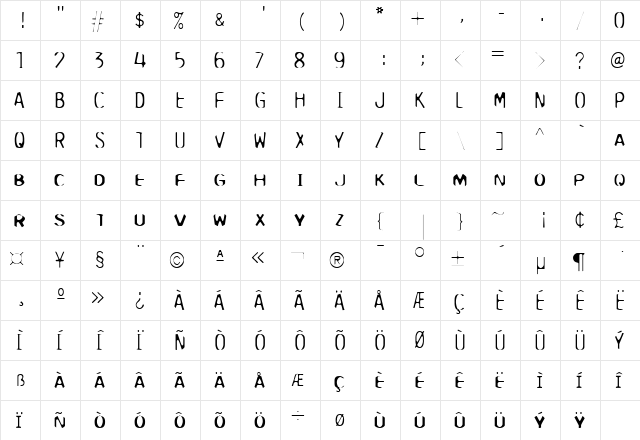
Pure Regular Font Preview
Pure Regular
Design Context for Pure Typeface
Pure takes a measured approach to typography — its balanced proportions and neutral character make it a reliable workhorse for both digital and print work.